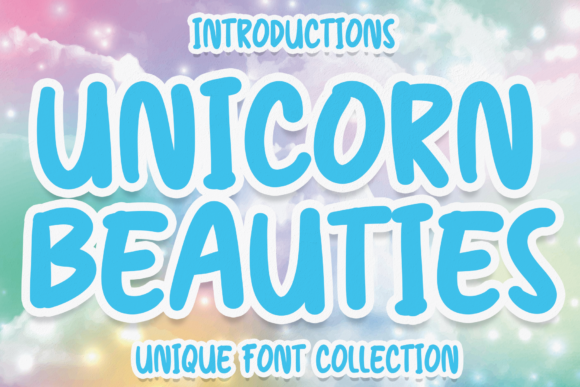
Introducing Unicorn Beauties Font - A Typographic Masterpiece Unleashing Whimsy and Charm!
Immerse yourself in a world of enchantment with Unicorn Beauties Font, a display font that captures the essence of fun, bubbliness, and heartwarming friendliness. Each character dances across your screen like a playful pixie, embodying the spirit of authenticity and childlike wonder. As you type, feel the magic unfurl before your eyes, transforming ordinary words into extraordinary expressions of creativity.
Step into a realm where imagination reigns supreme, where Unicorn Beauties Font becomes your trusty companion in crafting captivating logos, school projects, and any endeavor that calls for a touch of whimsy. Its versatility knows no bounds, inviting you to let your creative spirit soar. Whether you're a seasoned designer or just starting your typographic journey, Unicorn Beauties Font will guide you along the path of visual storytelling, leaving a trail of delight in its wake.
With Unicorn Beauties Font, you'll discover endless opportunities to bring joy and personality to your designs. Its vibrant energy is contagious, spreading happiness with every stroke and curve. Let your imagination run wild as you conjure up logos that sparkle with magic, invitations that promise adventure, and posters that burst with color and charm. Unicorn Beauties Font is the key to unlocking a treasure trove of creative possibilities, just waiting to be explored.
So, embark on this enchanting adventure with Unicorn Beauties Font, your trusty companion in the realm of imagination and design. Allow its playful spirit to ignite your creativity, transforming your projects into captivating masterpieces that leave an unforgettable impression. Dive into the world of Unicorn Beauties Font today and let the magic begin!